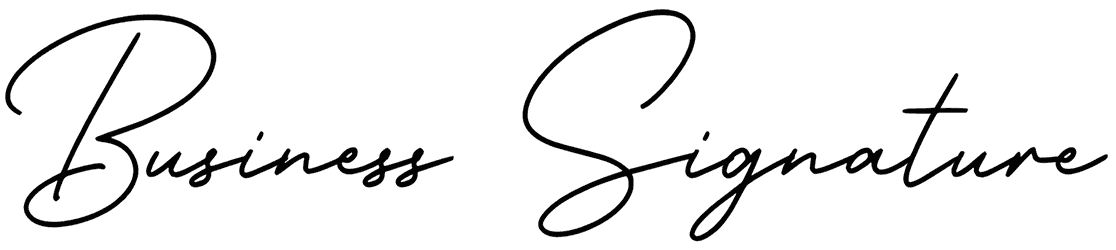
Business Signature Font
Designed byNirmana Visual
Sharing an amiable and playful feeling in designing can crop up through the use of the script font like Business Signature; its sweet romance spirit makes it potential to adorn any creative greeting cards, lovely text, posters, apparel, and other displays.
Although this handwritten font does not cover numbers and does not read well, you can be sure that it will leave no stone unturned in accentuating your design.